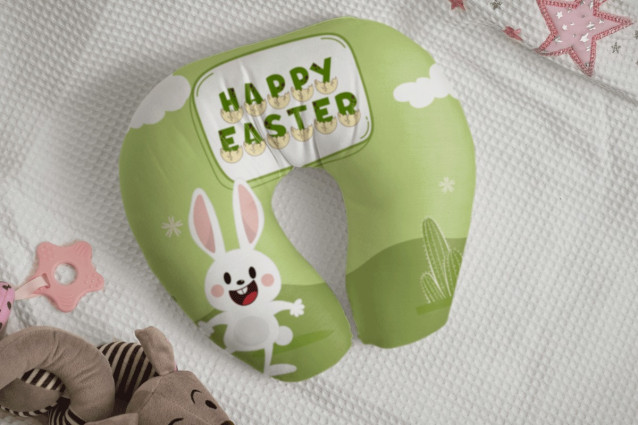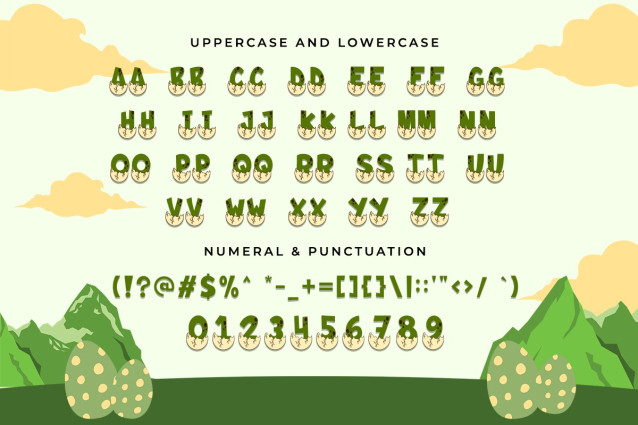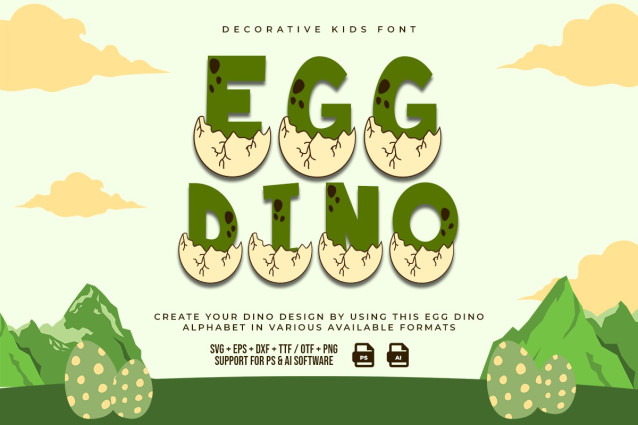
Egg Dino Font
Egg Dino Decorative Kids Font features cute and modern font design elements. Each letter in this font is easy to distinguish. You can see it cute from far or close. The letters in this font are upright and have dinosaur egg fragments underneath. This font has a dinosaur footprint motif. This font is legible. This typeface is the best font for children’s supplies, such as baby items, school supplies, children’s clothing, and water bottles. The Egg Dino Decorative Kids Font can be used on roadside posters and billboards containing promotions or product announcements about children. This font is used on book and magazine covers. This font is best suited for writing short sentences or words because it looks simple and clean. Can be used as drink packaging and cellphone casing. The Egg Dino Decorative Kids Font can be used as a digital font and is suitable for animated videos, titles, or subtitles that appear in the intro to write a thank you note outside the video. This font can be included in cartoons and fairy tales. Of all these explanations, the Egg Dino Decorative Kids Font is the best children’s font. Our display font collection is compatible for use as; Figma Fonts, Canva Fonts, Freepik Fonts, and Adobe Fonts. They also function as Windows Fonts and Apple Fonts. For your social media needs, you can use and install fonts in our Espot & Futuristic font collection to use as Instagram Fonts, Facebook Fonts, and Twitter Fonts.